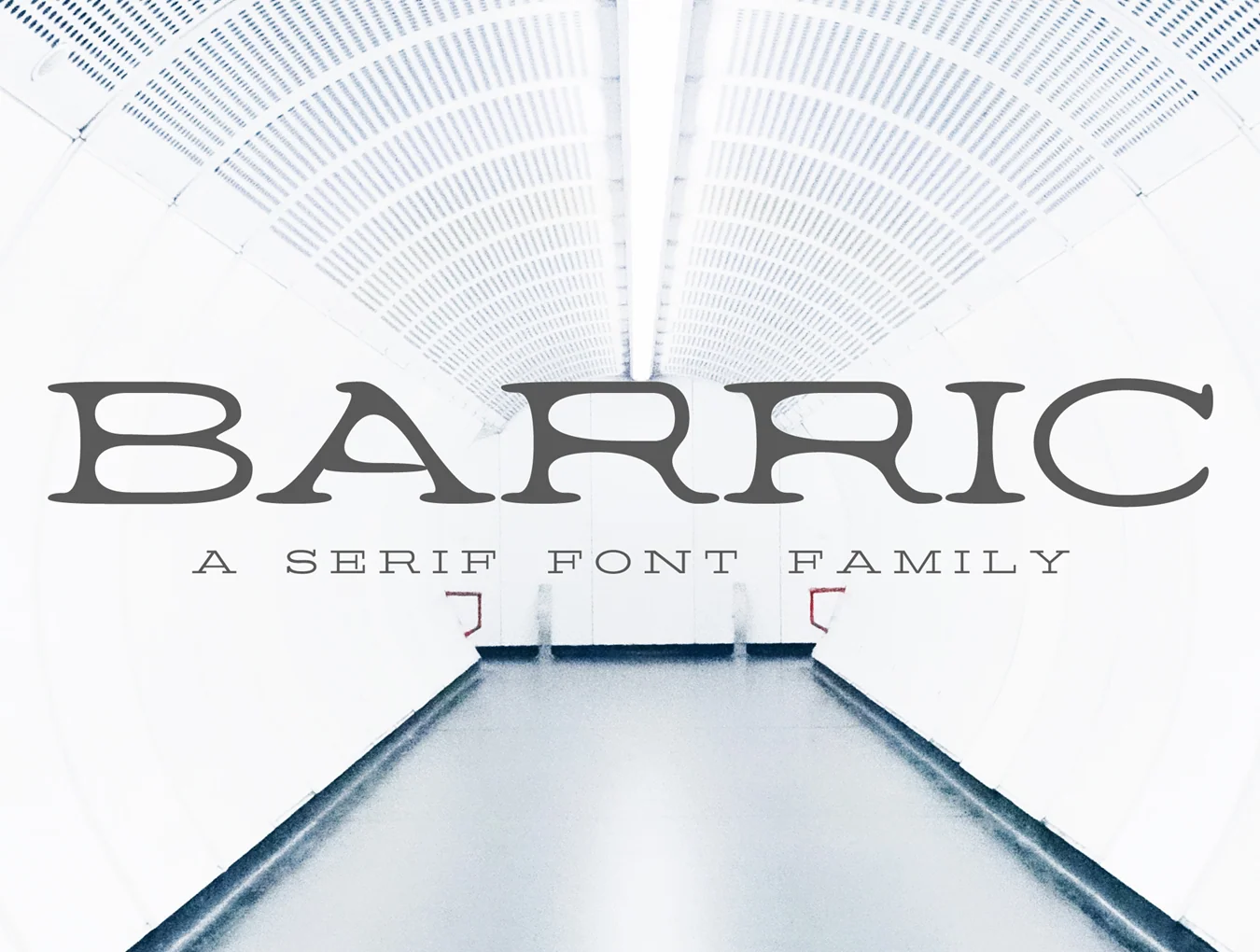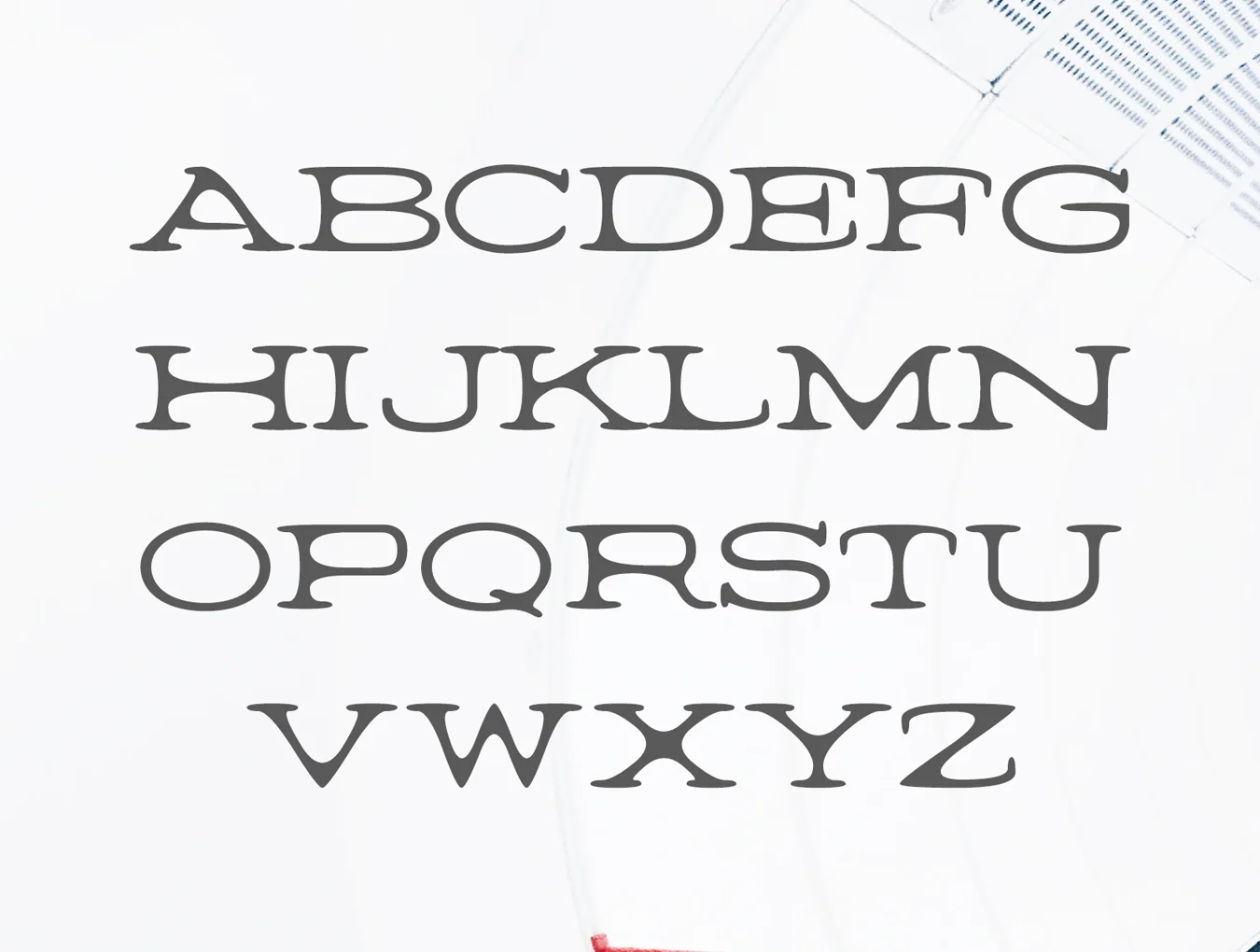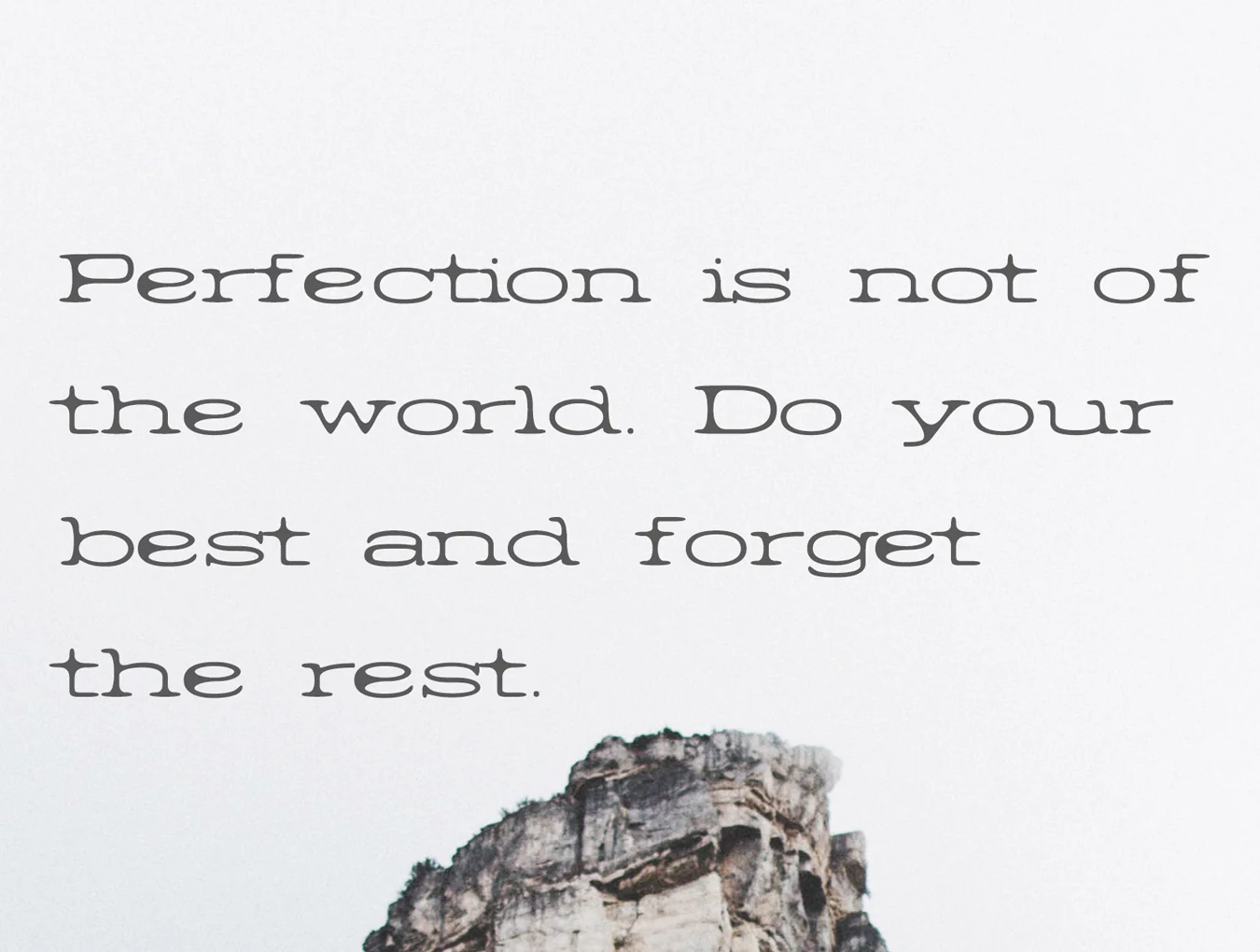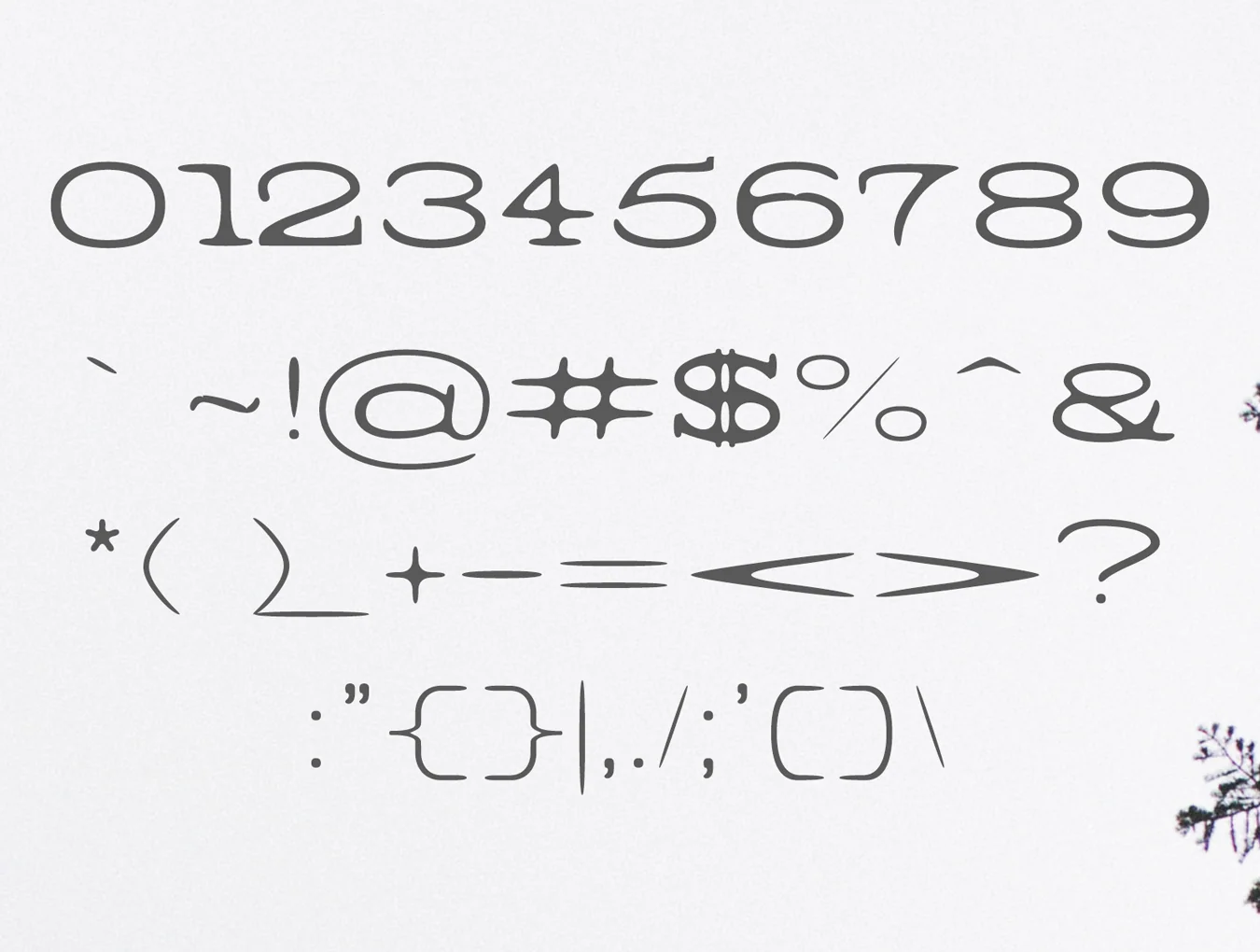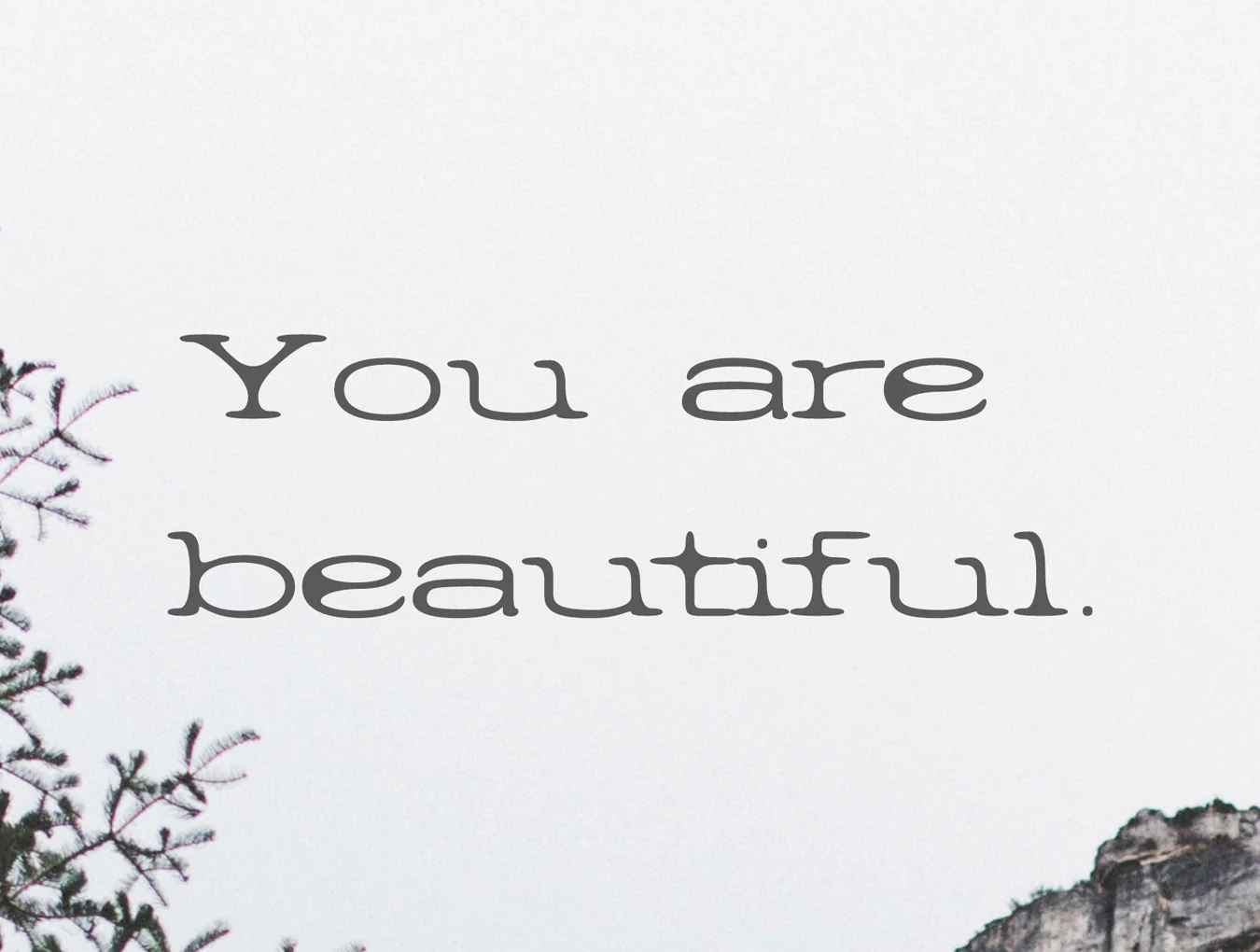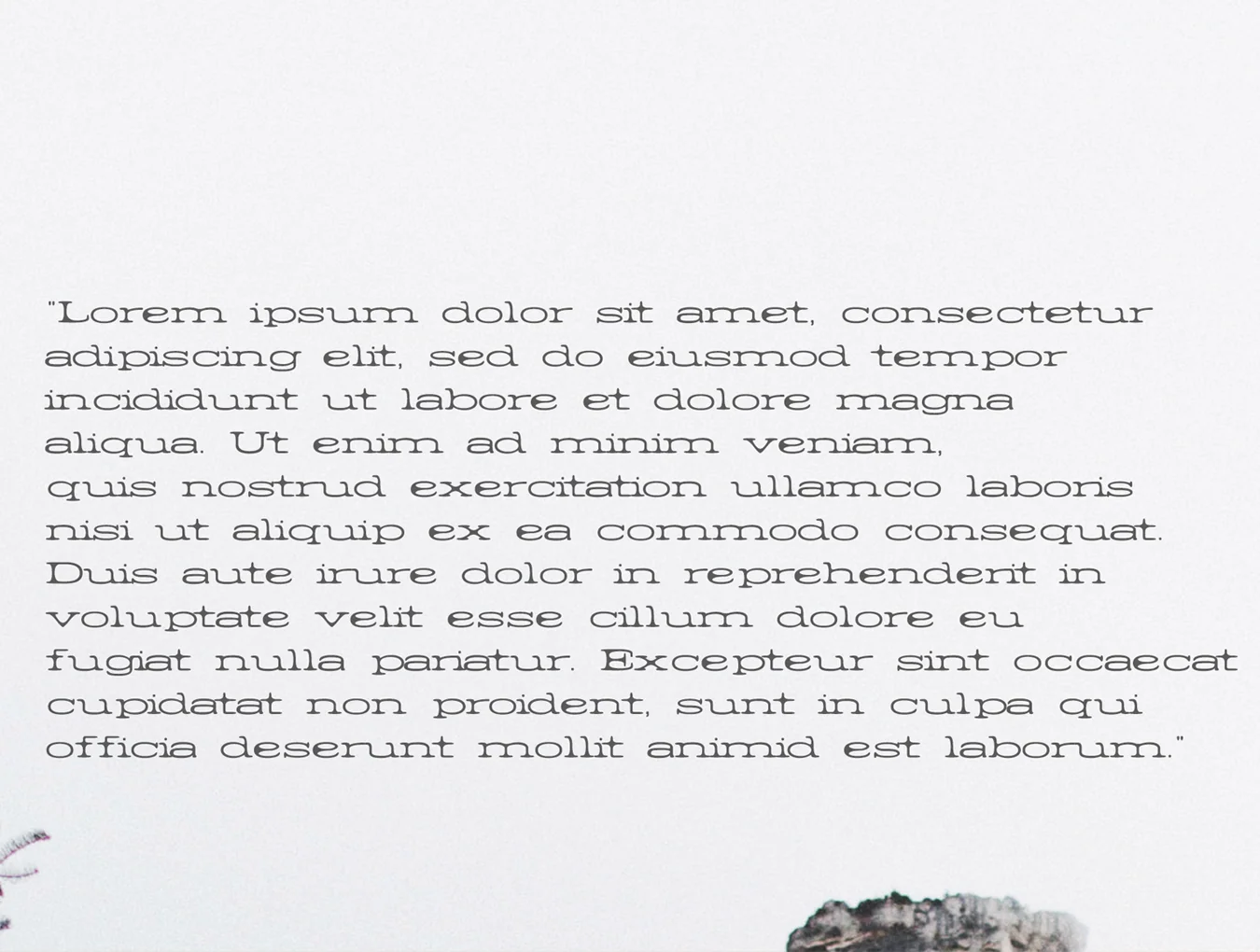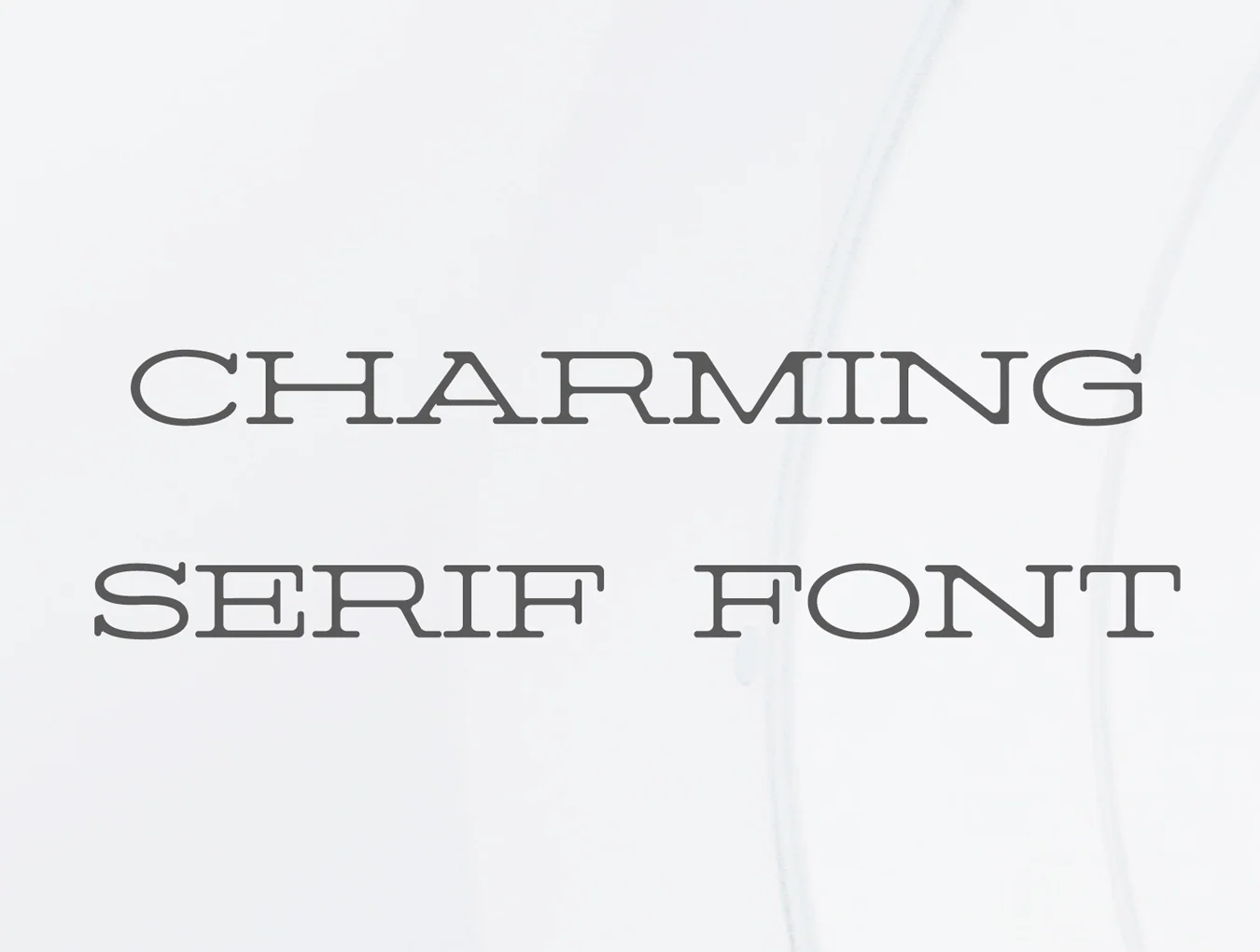
Barric A Serif Font Family
Barric A Serif Typeface Collection
Serif font style
Regular, Light, Round and Bold styles
Barric A is a polished rounded serif font family offering 5 styles. It includes uppercase letters, numerals, and symbols, making it suitable for headlines, logos, signage, ads, magazines, invitations, posters, titles, business cards, web layouts, branding, weddings, social media, products, stationery, and business use.